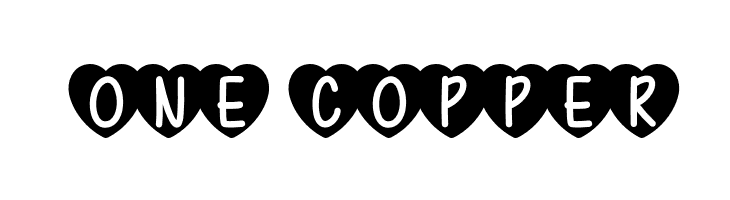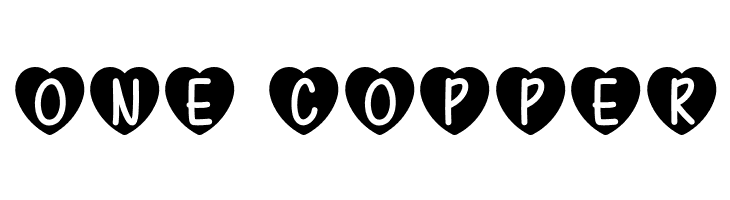
• Lord of the Sith Laser Italic
A bold, italic, futuristic font with sharp, angular edges.
• Lord of the Sith Leftalic
A bold, left-leaning futuristic font with angular cuts and a strong presence.
• Lord of the Sith Semi-Italic
A bold, semi-italic font with a futuristic and dynamic style.
• Lorre
A bold, rounded font with a modern and impactful style.
• Lorre Italic
A bold, italic font with a strong slant and thick strokes, perfect for impactful designs.
• Los Mesitos Regular
A bold, geometric font with sharp, angular edges and a vintage industrial style.
• Lost in moments
A bold, rugged, hand-drawn font with a distressed texture.
• Lost in moments
A bold, hand-drawn font with a rugged, distressed appearance.
• Lost in the supermarket
A playful, hand-drawn font with an organic and casual style.
• Love in Paris
• Love Is Awesome
A playful, heart-enclosed font with a casual handwritten style.
• Love Is Awesome 2
A playful, heart-themed decorative font with bold, handwritten characters.
• Love Letter
A playful, handwritten font with a whimsical and casual style.
• Love Moment
A bold, expressive script font with a hand-drawn, fluid style.
• Love my tattoo
A bold, tattoo-inspired font with sharp, angular lines and intricate details.
• Love Rock
A bold, expressive script font with a dynamic, brush-like texture.
• LoveIsAwesome
A playful font with characters inside heart shapes, perfect for romantic or themed designs.
• LoveIsAwesome2
A playful, heart-enclosed font with a handwritten style, perfect for romantic themes.